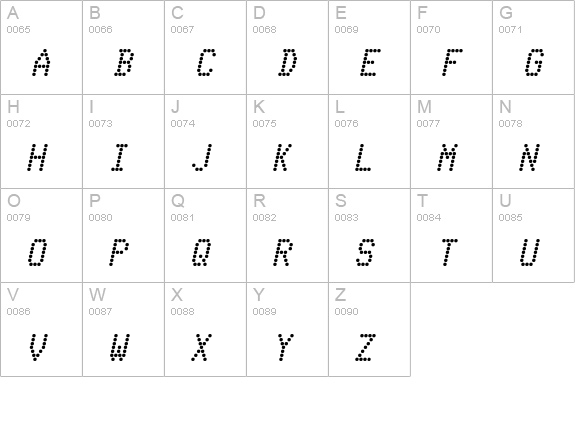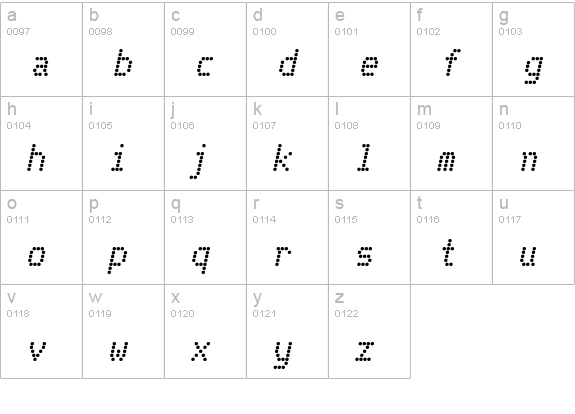
Telidon Bold Italic Font Details
Telidon Bold Italic is a strong, high-contrast, italic variant in the Telidon typeface family \xE2\x80\x94 well suited to headlines, attention-grabbing titles, and strong calls-to-action.
Telidon Bold Italic is a striking and versatile typeface that exudes confidence and modernity. With its bold weight and stylish italic slant, this font is perfect for making a bold statement in any design project. The strong and dynamic letterforms of Telidon Bold Italic make it ideal for headlines, logos, and branding materials that demand attention. The unique design of Telidon Bold Italic brings a touch of sophistication and flair to any text, making it stand out from the crowd. Whether you're looking to add a touch of elegance to your website, create eye-catching social media graphics, or design a sleek brochure, Telidon Bold Italic is sure to impress. Best of all, Telidon Bold Italic is available for free download at FontsMarket.com, so you can easily access this stunning font and start using it in your projects right away. Don't miss out on the opportunity to add Telidon Bold Italic to your font collection and elevate your designs to the next level.